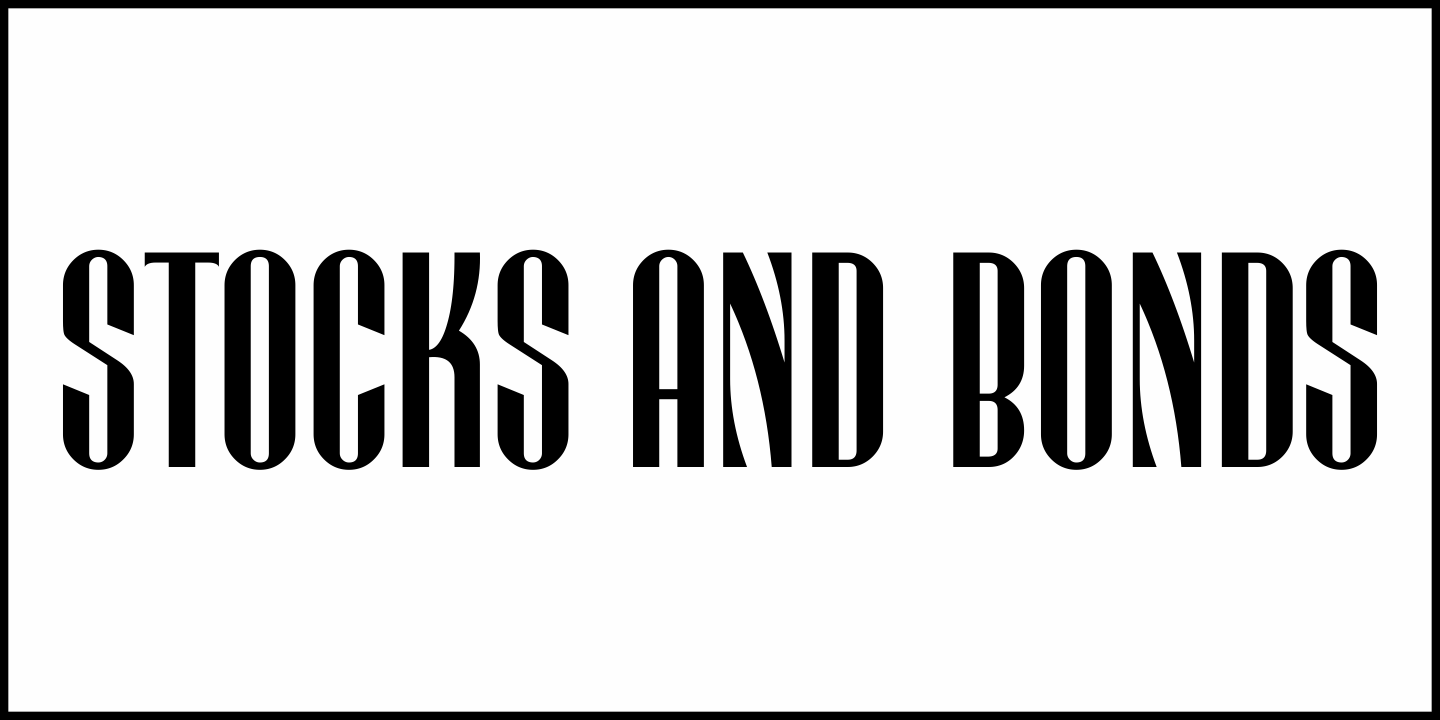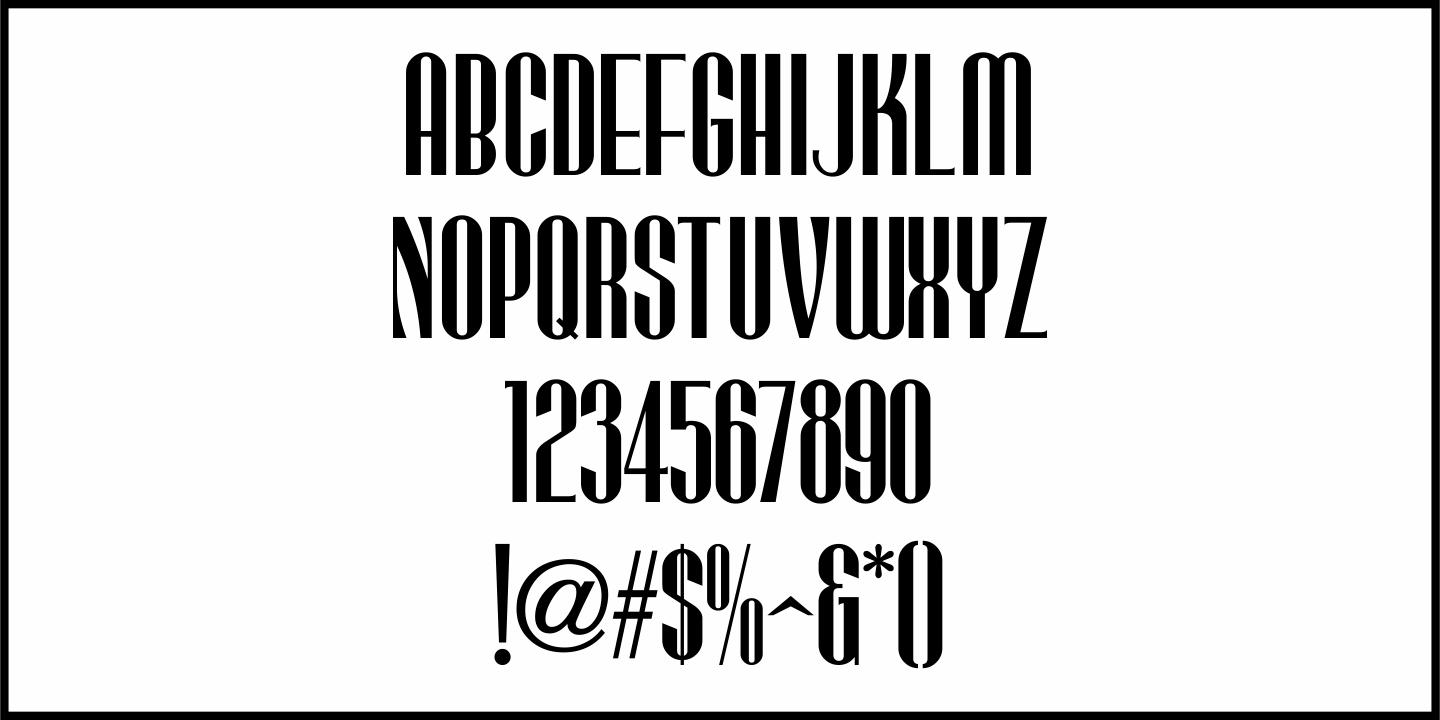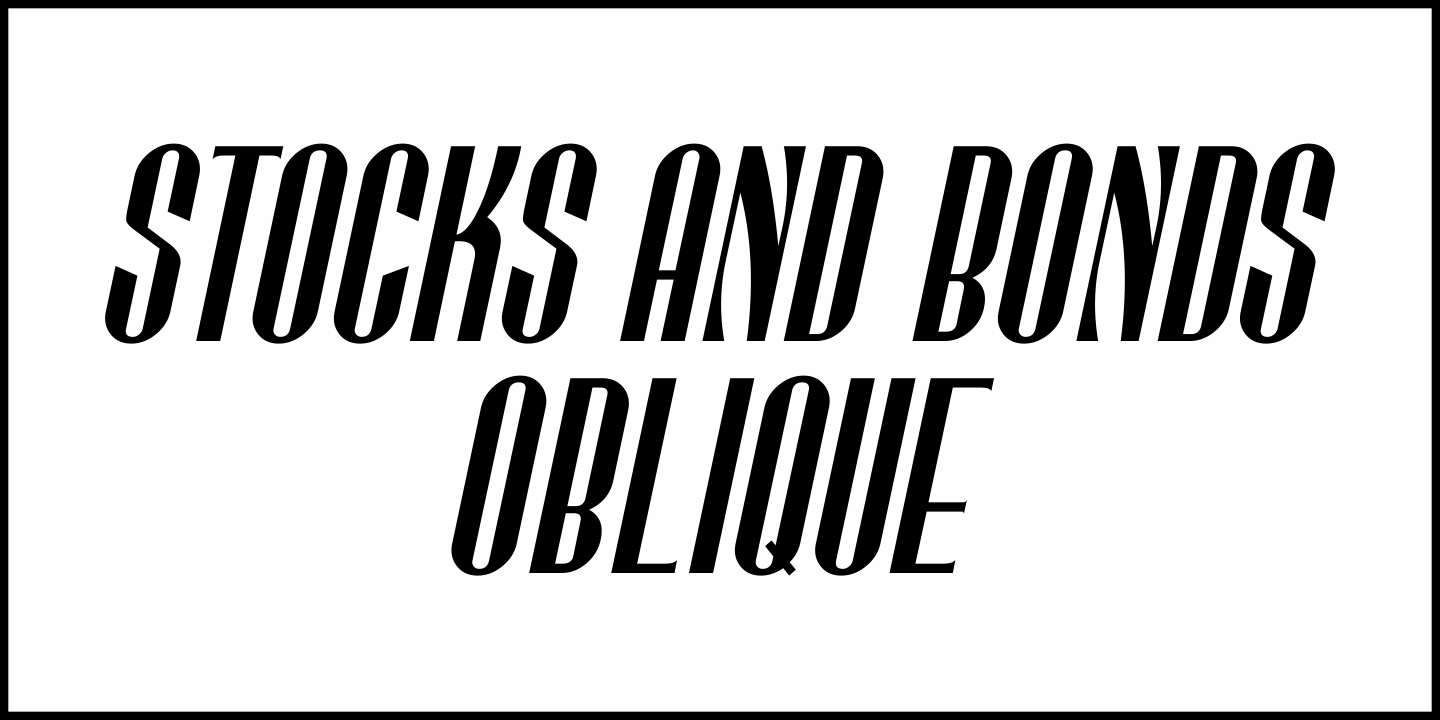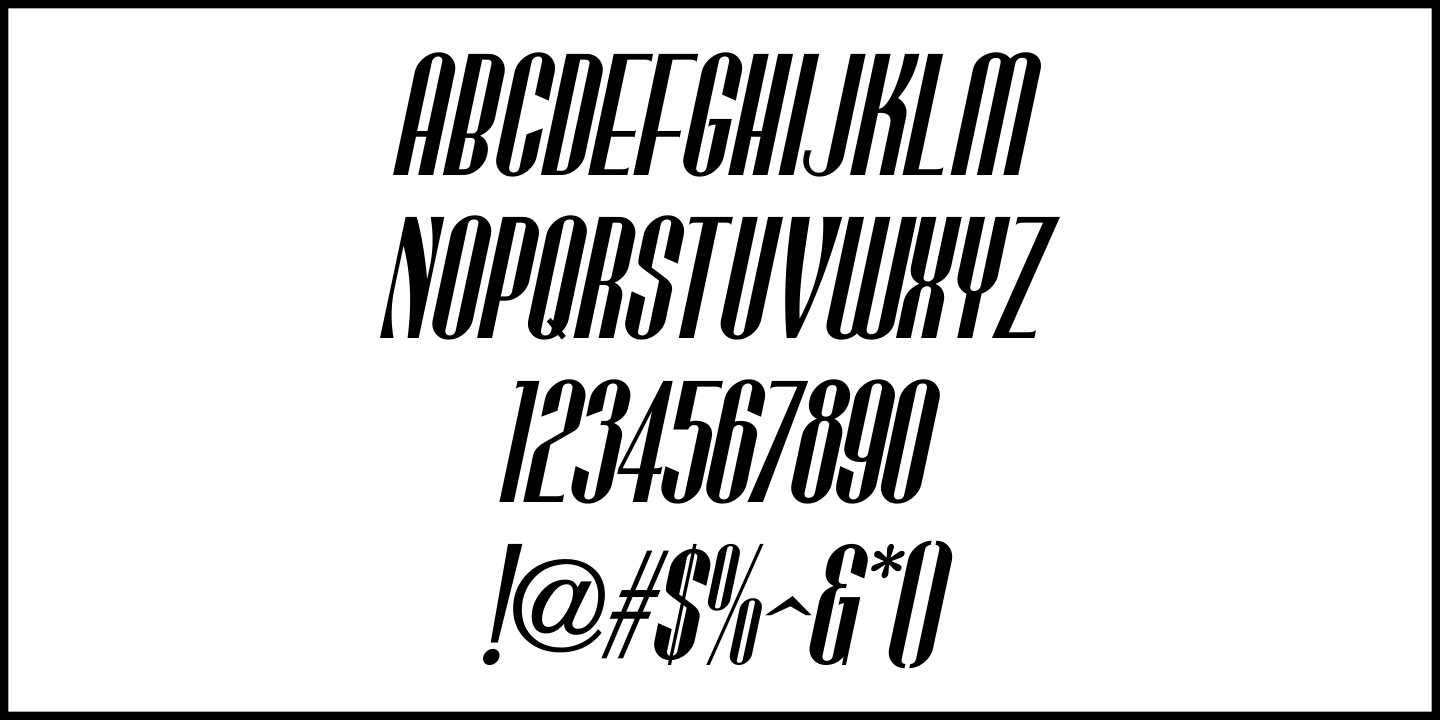
Stocks and Bonds
The hand lettered opening title for the 1935 movie “Thanks a Million” is rendered in a condensed, thick and thin Art Deco sans serif design.
It is now available as the digital typeface Stocks and Bonds JNL – in both regular and oblique versions.